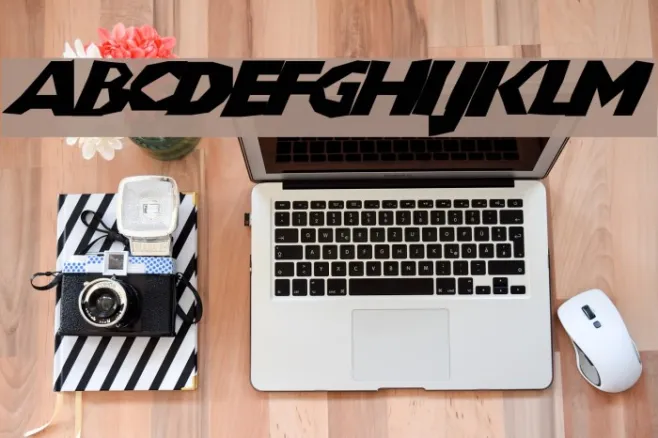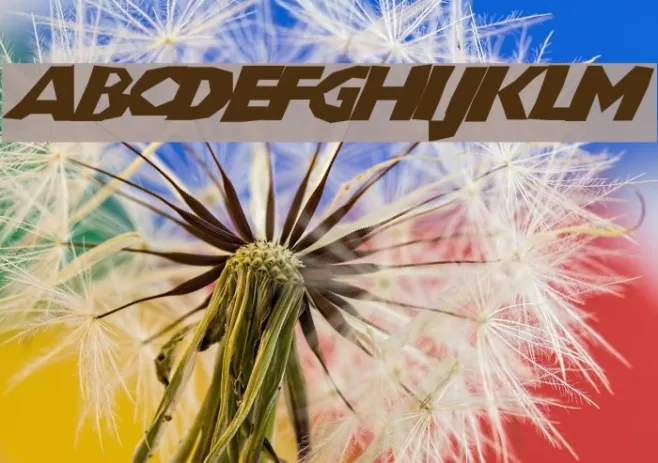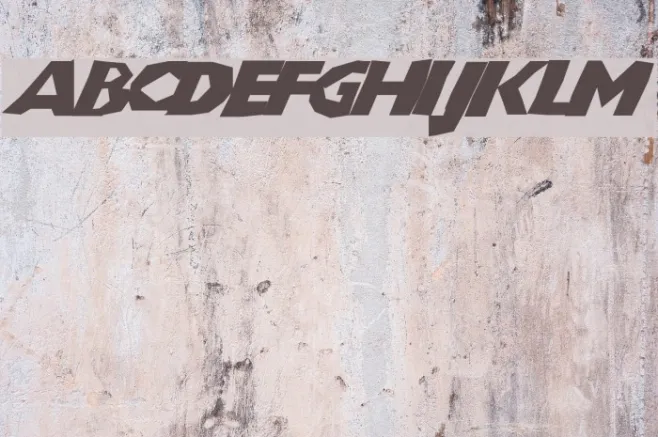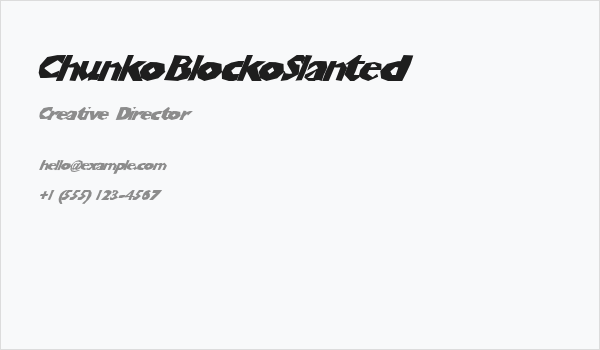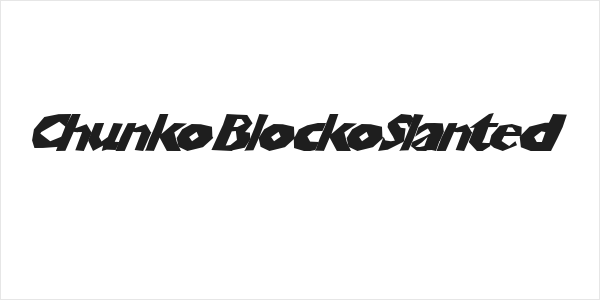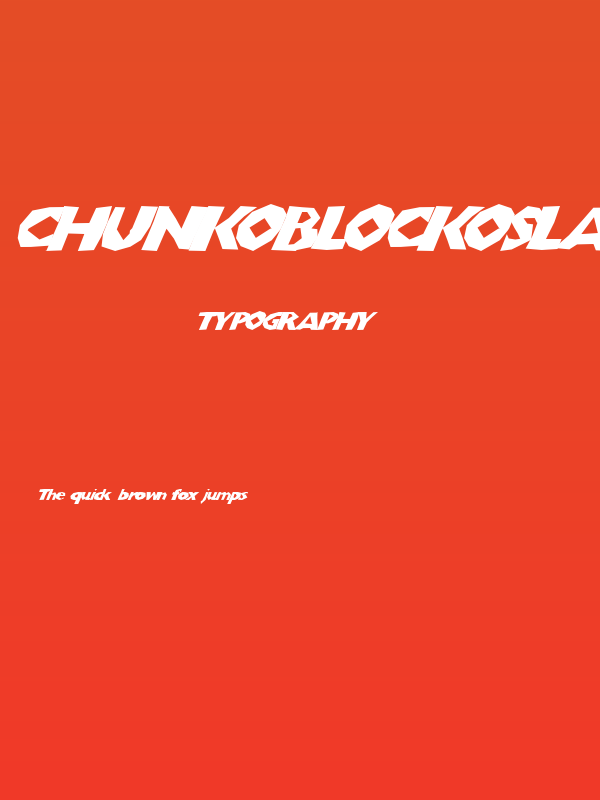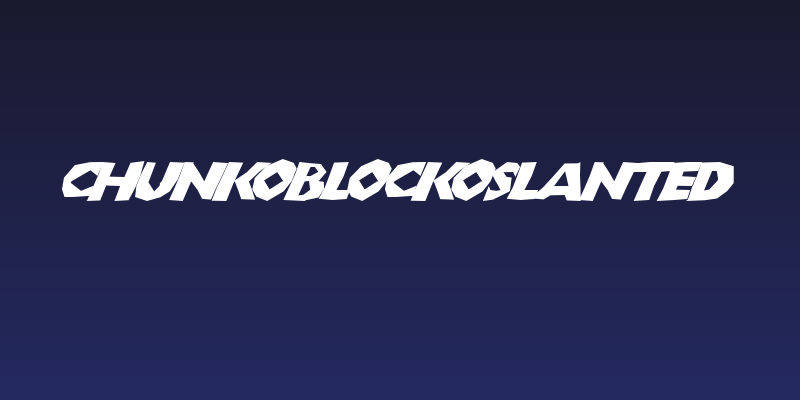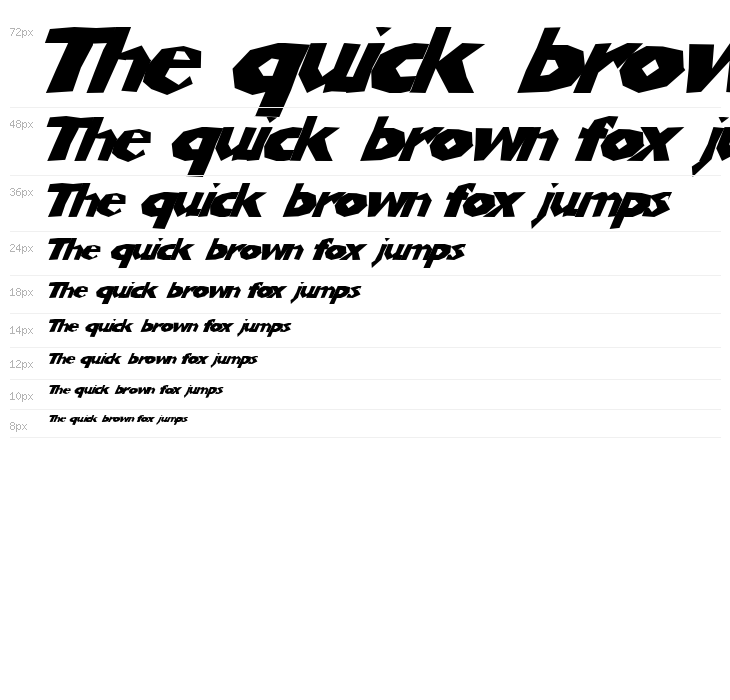
ChunkoBlockoSlanted Font
ChunkoBlockoSlanted Description
This font features a bold and dynamic design with a slanted, angular style that gives it a sense of motion and energy. The characters are blocky and robust, with sharp edges and a consistent slant that adds a unique flair. The uppercase and lowercase letters maintain a cohesive look, while the numbers and special characters are designed to match the overall aesthetic. The font's thick strokes and geometric shapes make it highly visible and impactful, suitable for attention-grabbing designs.
| Proposed Projects | Ideal for posters, logos, headlines, and any design that requires a strong, impactful presence. |